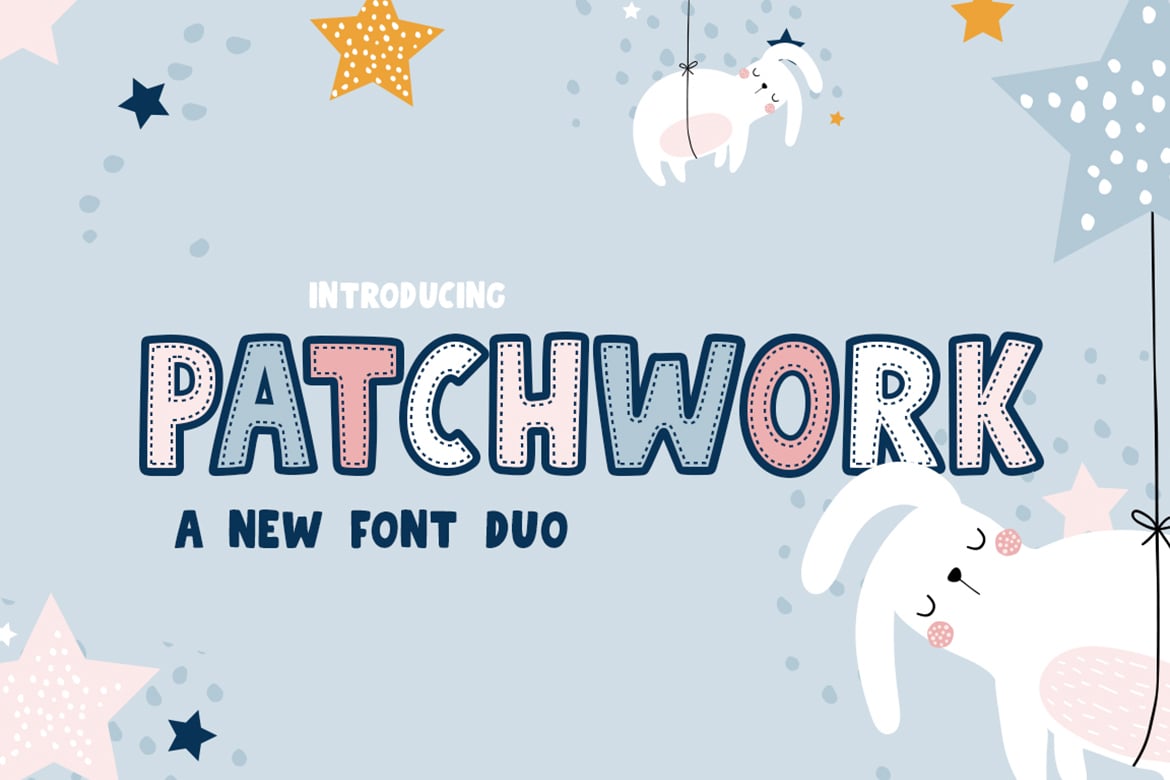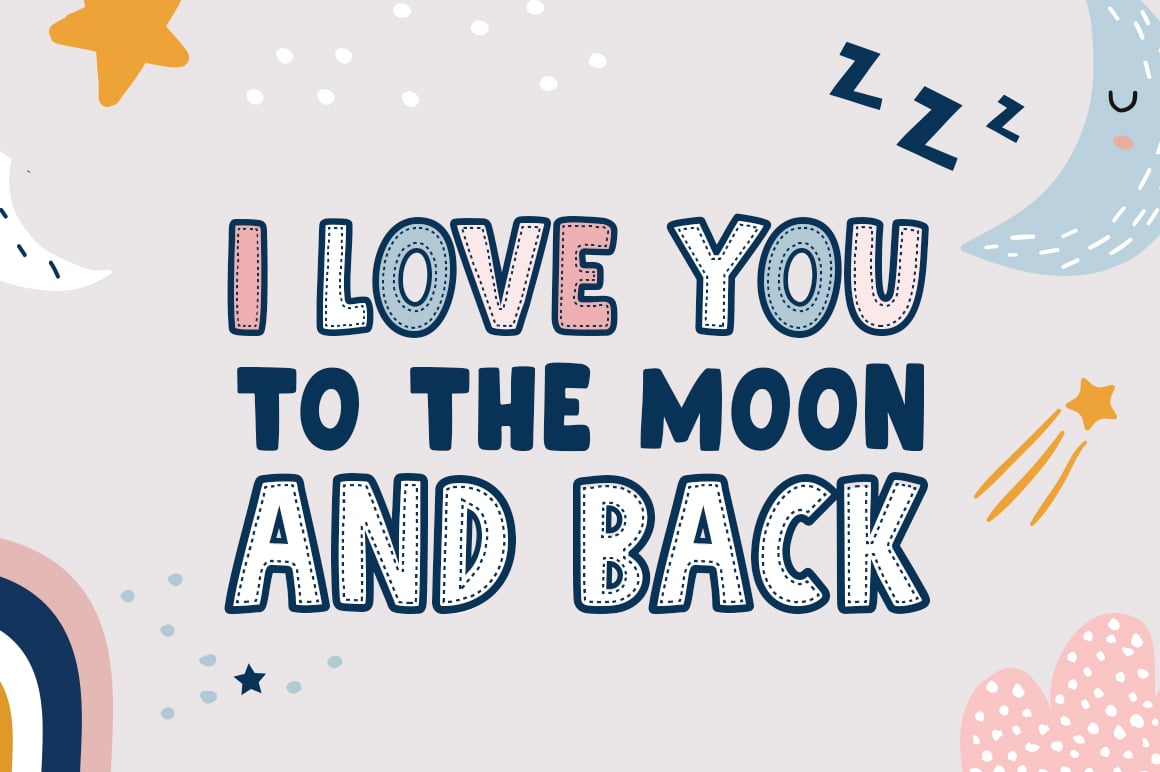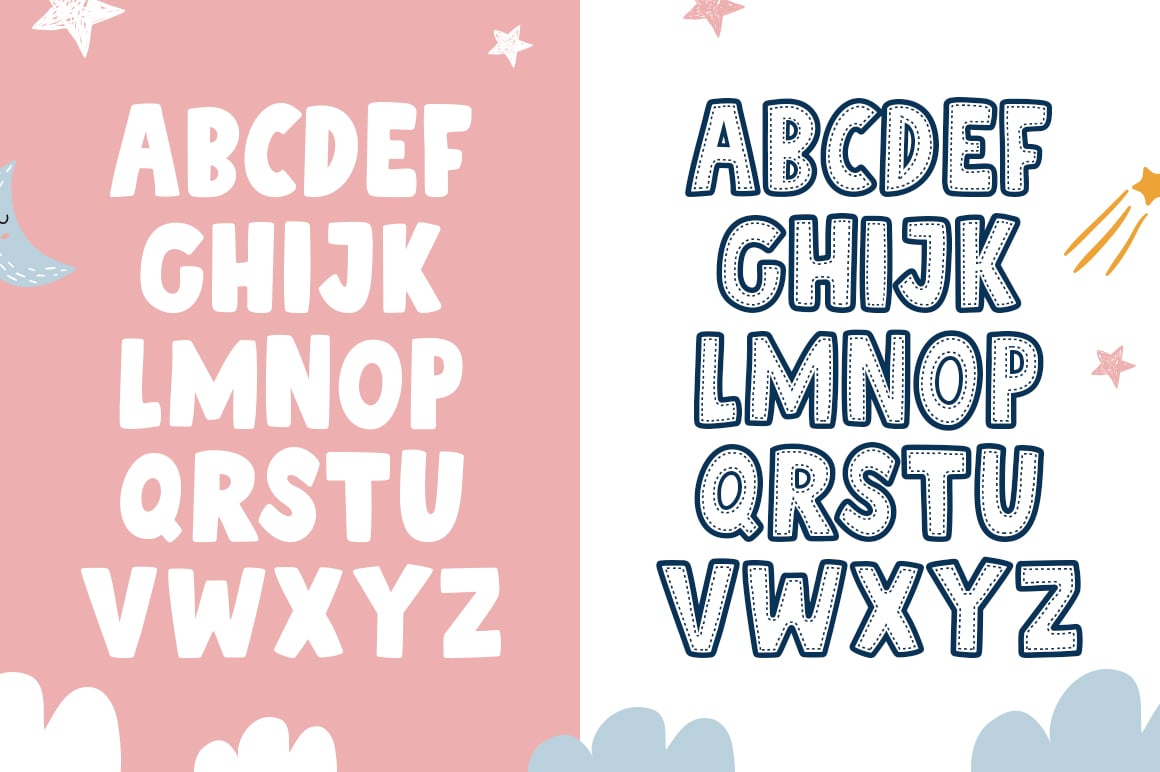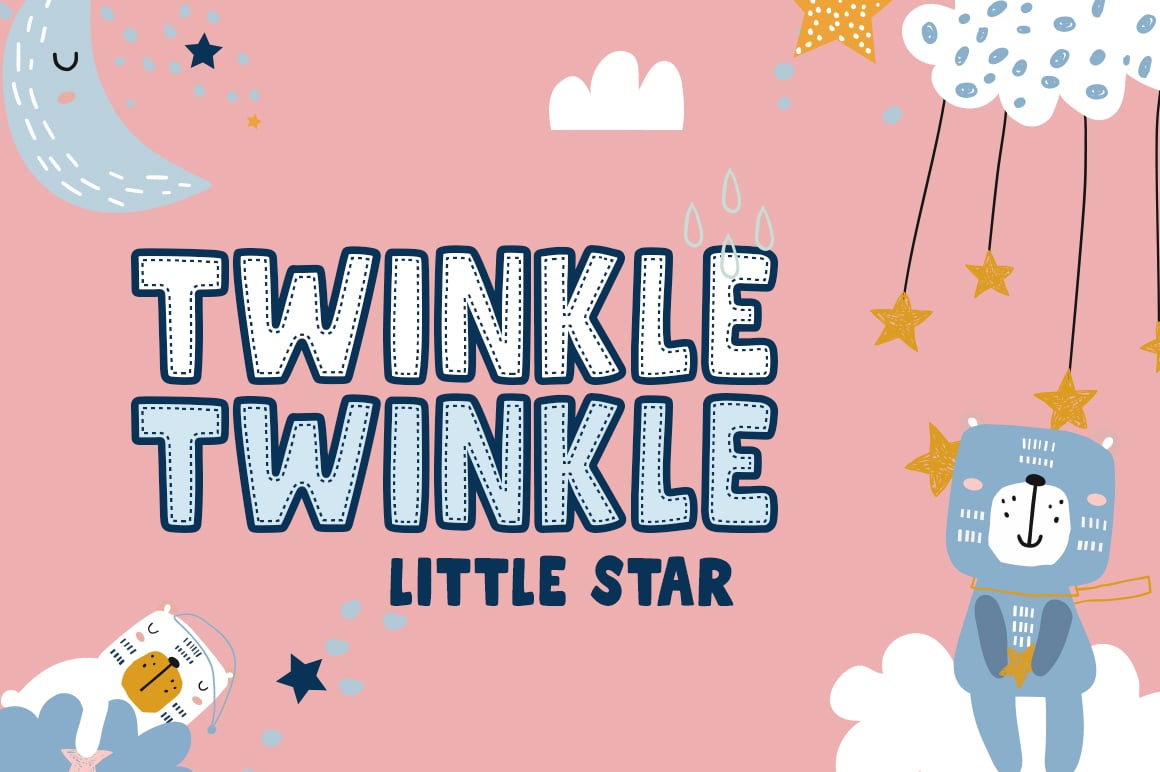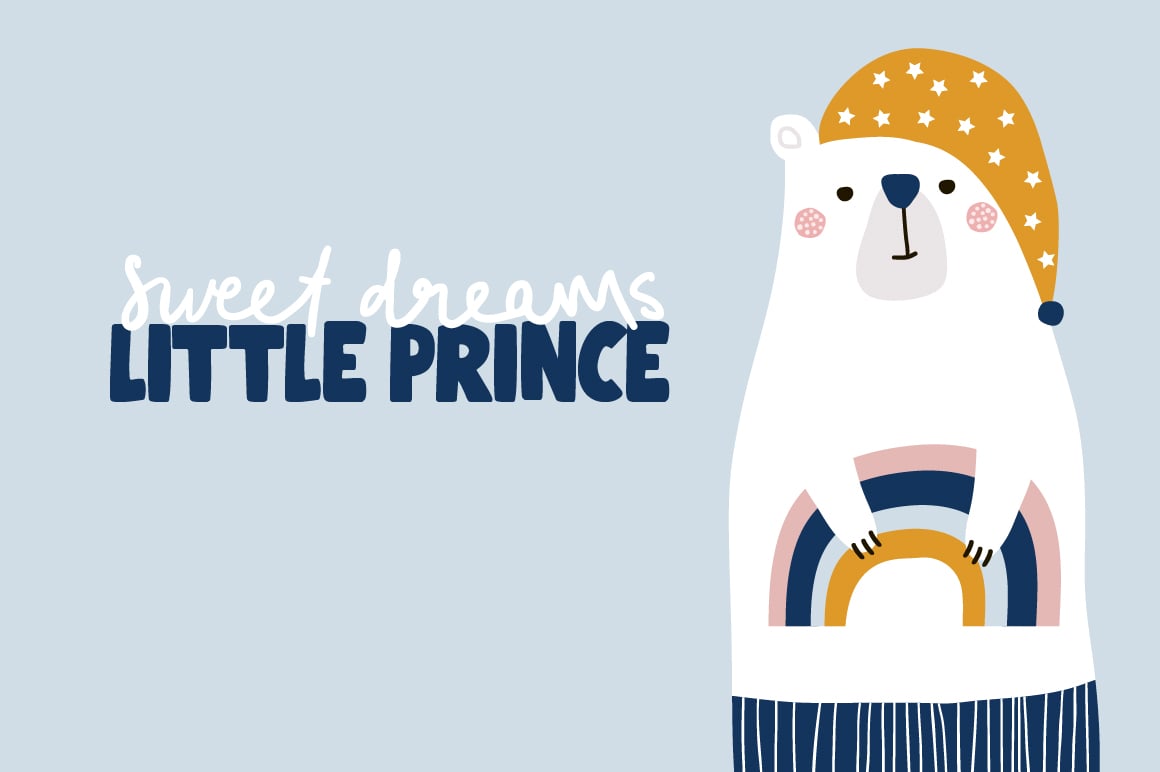
Patchwork Font Duo
Patchwork is a wonderful new font by salt and pepper designs that is actually a fantastic duo! You can use the ‘background’ version alone as a chunky font or layer it underneath the stitched font to create a perfect patchwork look! Enjoy!